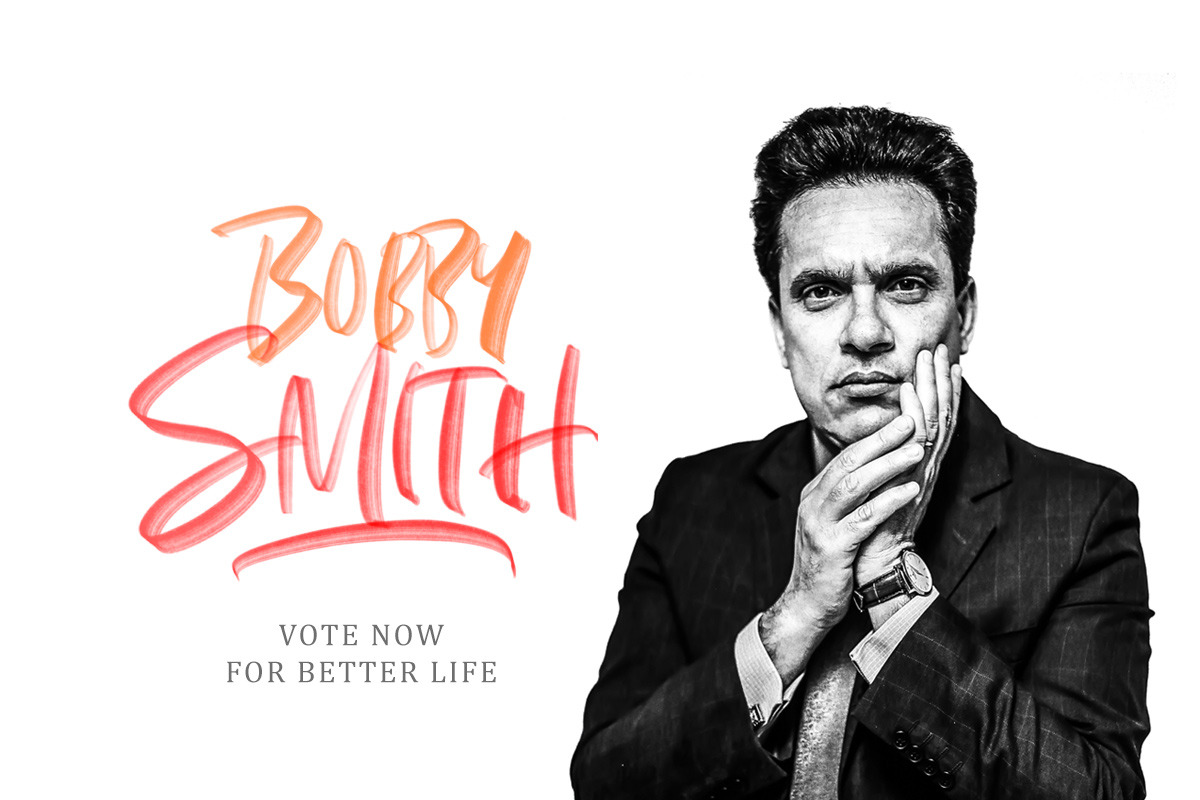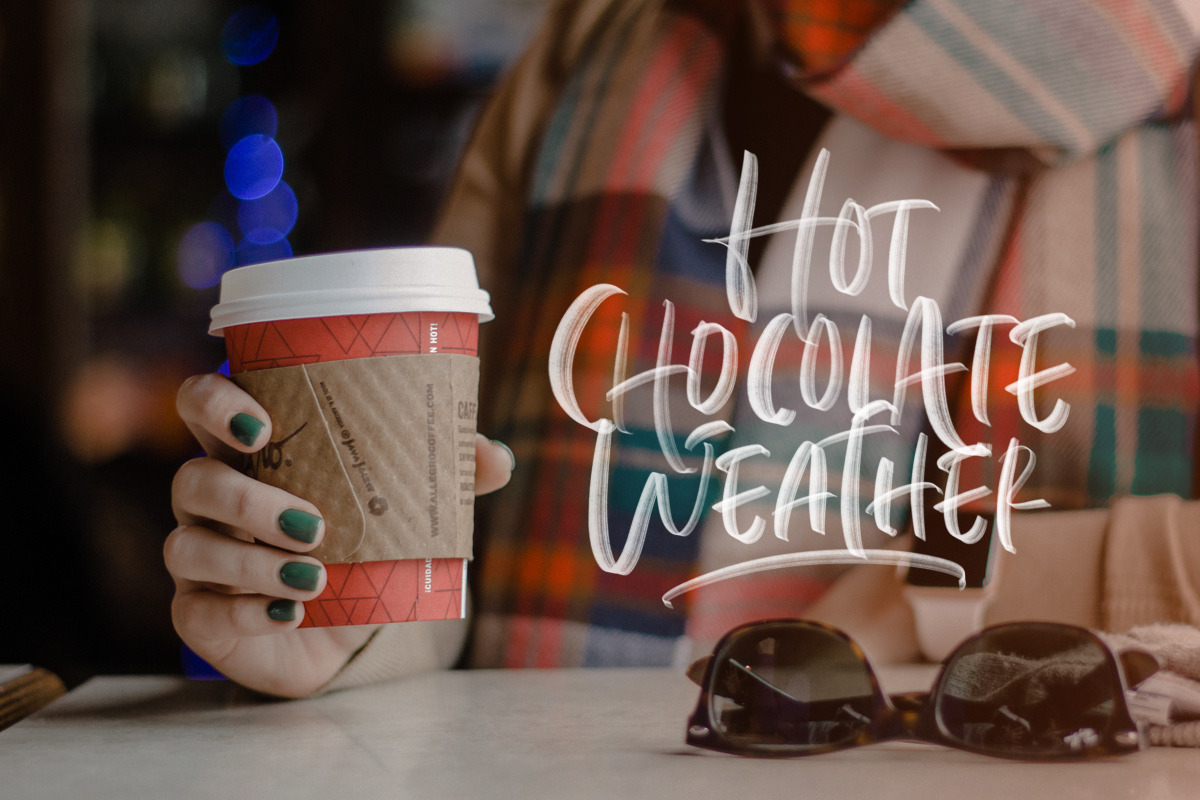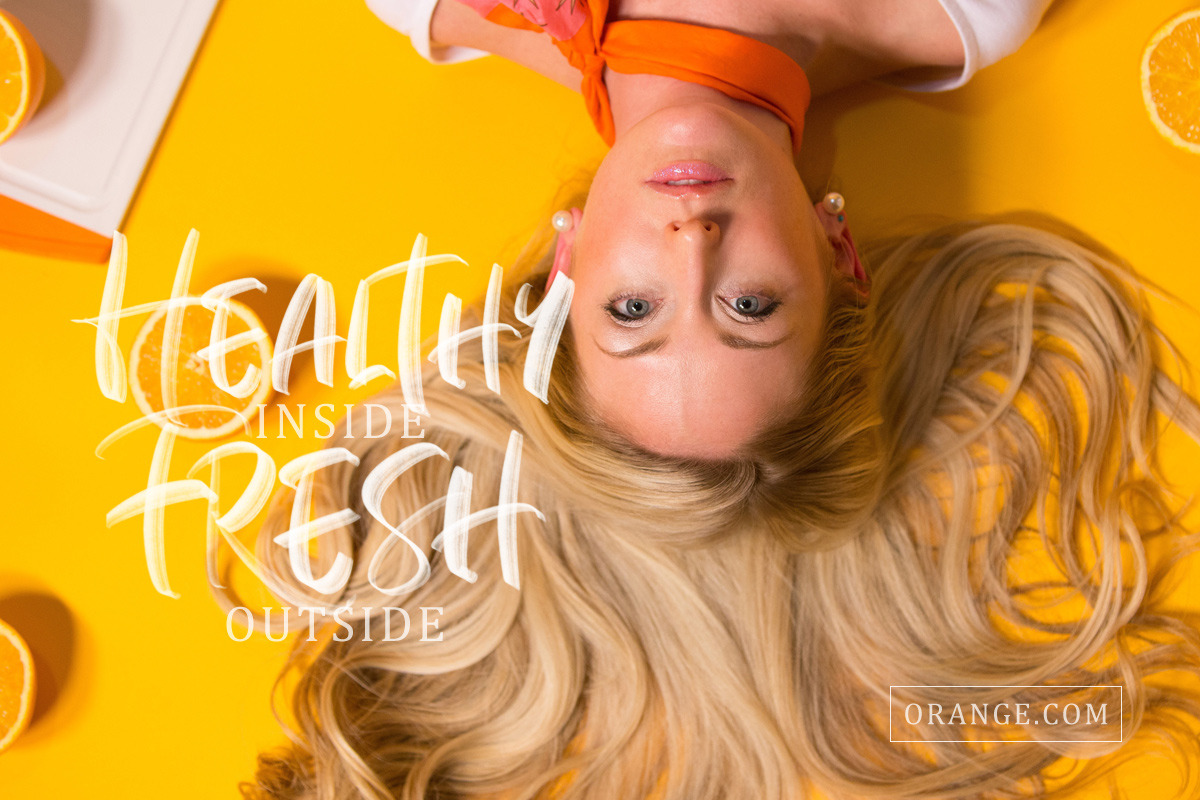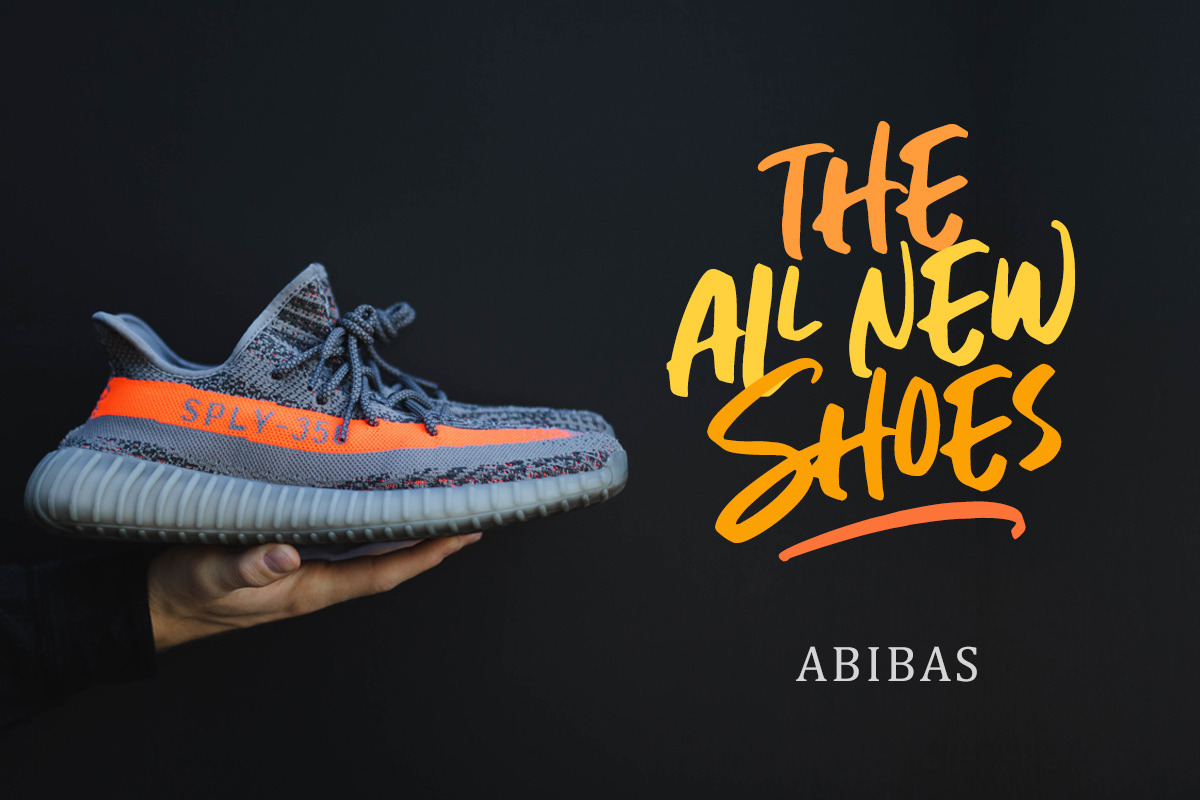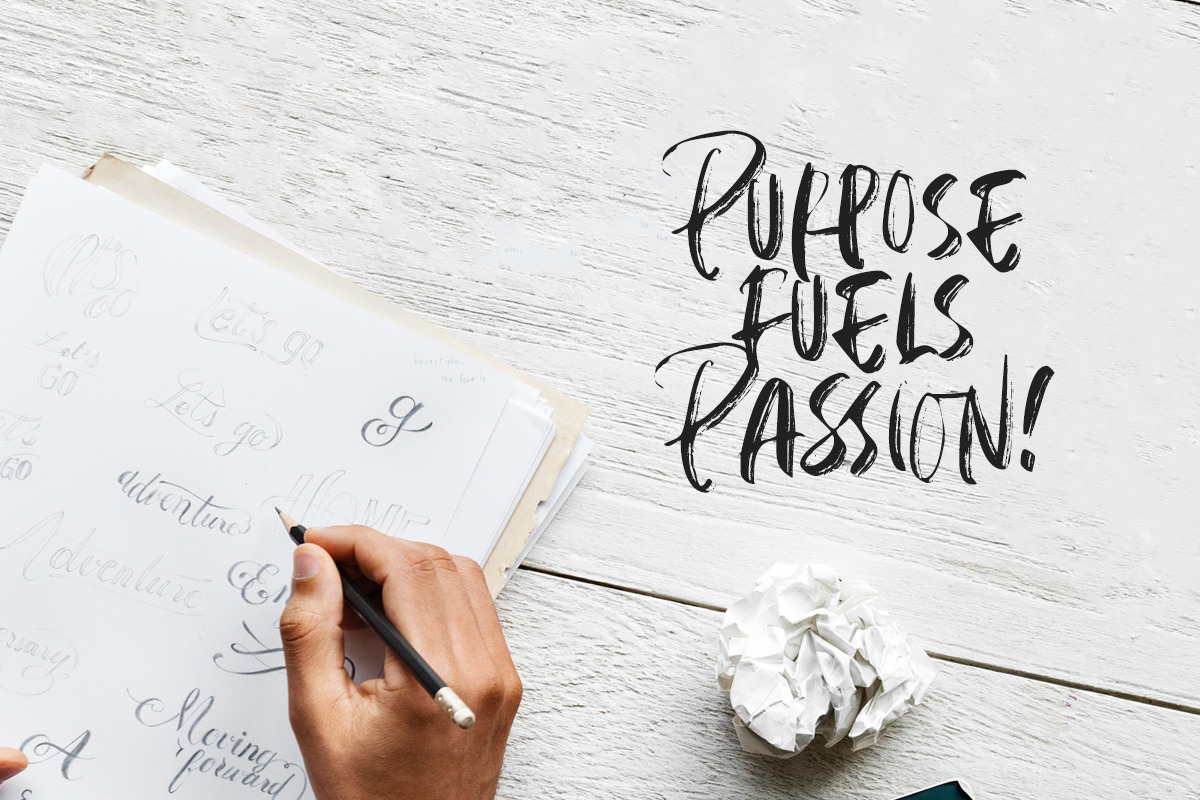
Edinburgh - SVG Font
Introducing, My Brand New SVG font, Edinburgh!
Edinburgh is handmade font that contains the newest font format, SVG, with two another format. You can use these fonts for various purposes such as making realistic handwriting, for promotions, or other purposes that will make your design more real as handmade. This font also contain ligatures and alternates.
This font made with bitmap format with high resolution, but don't worry, you still can change the color of the font by using layer style in photoshop.